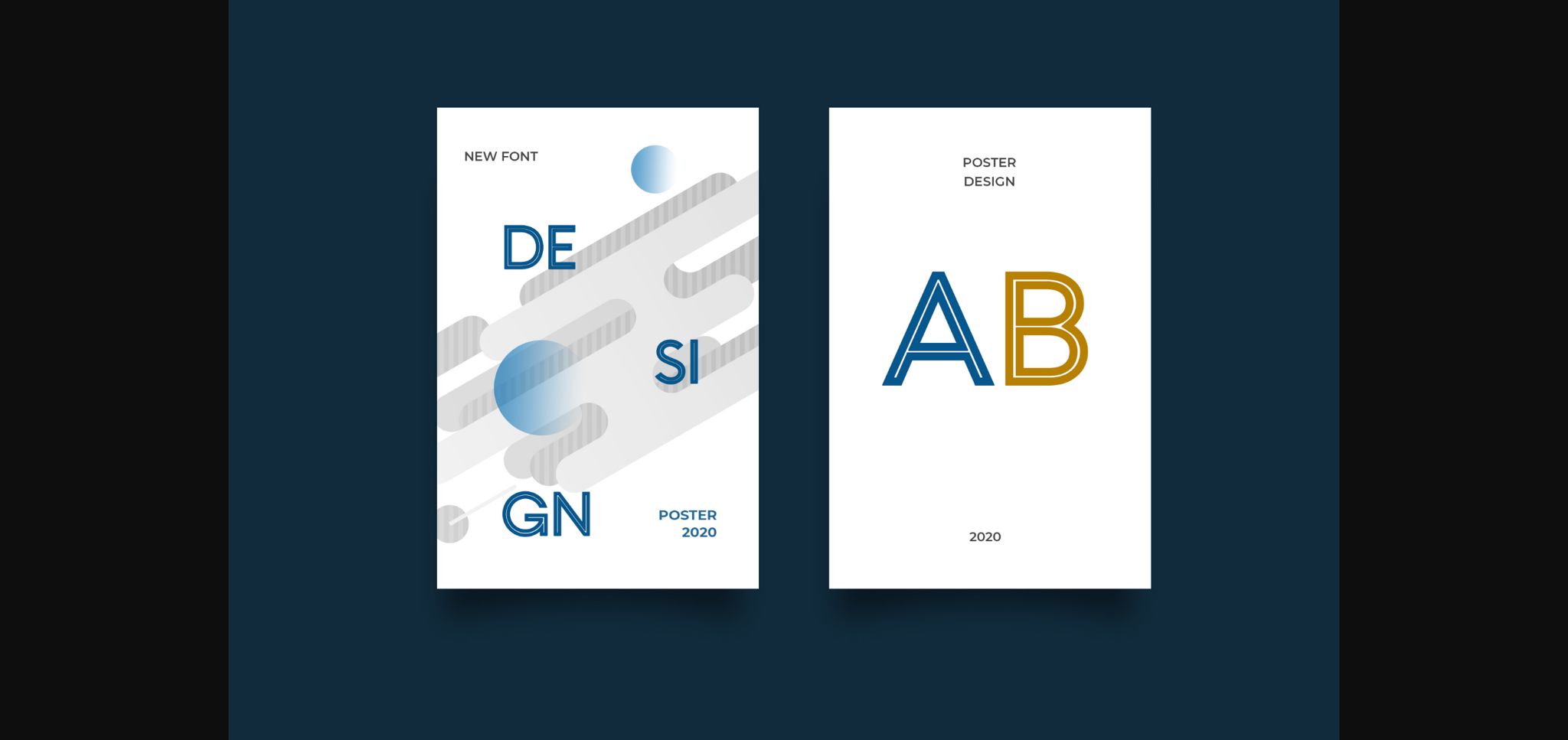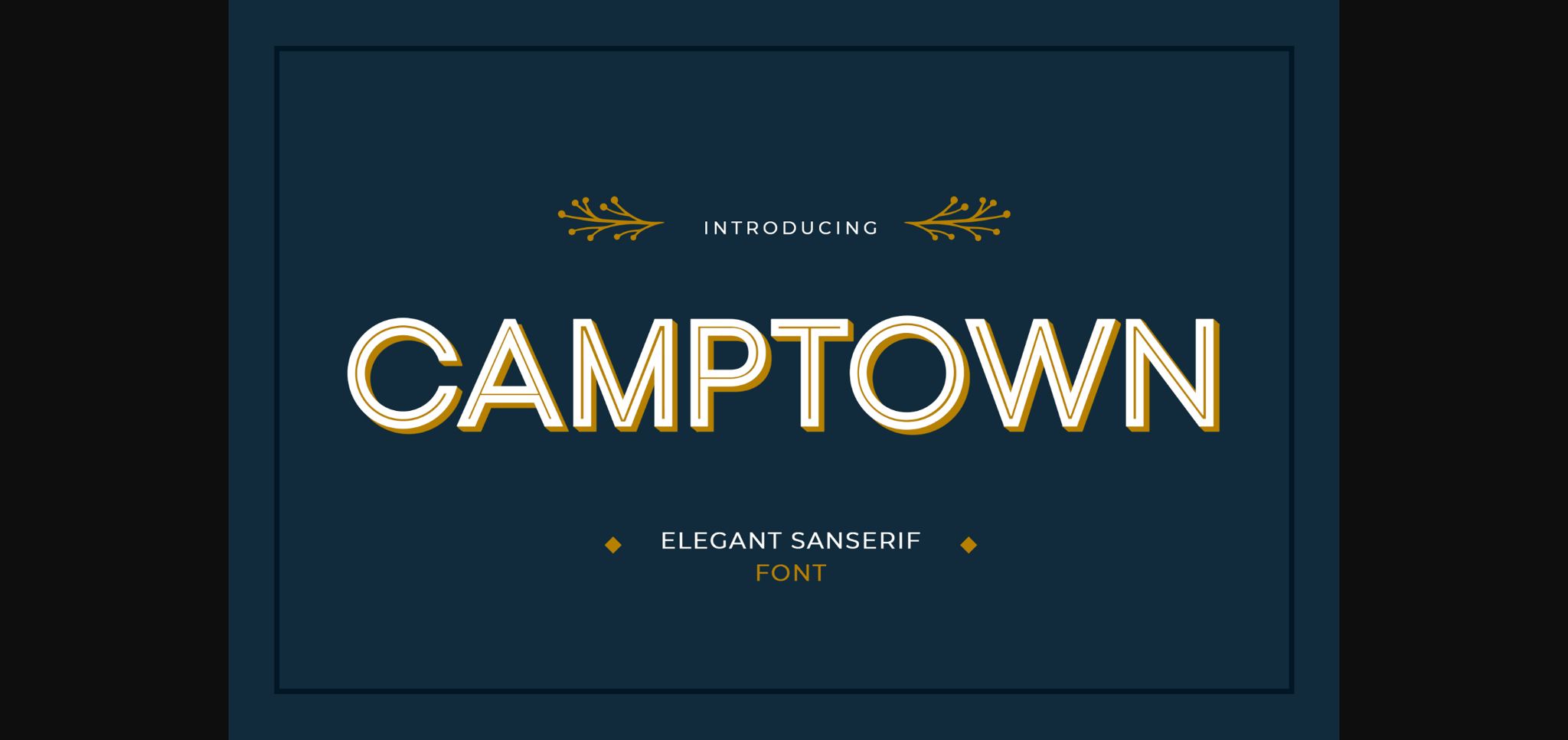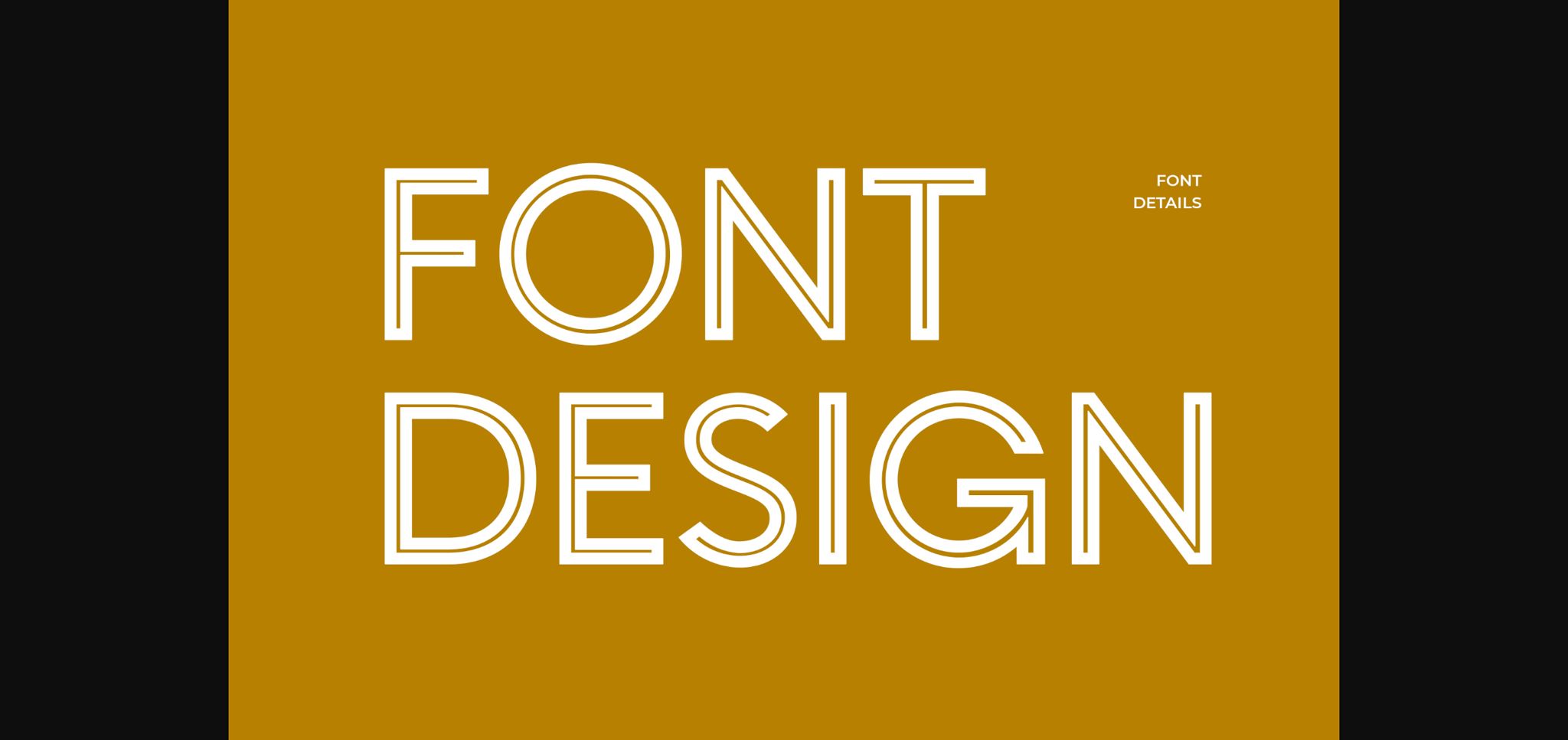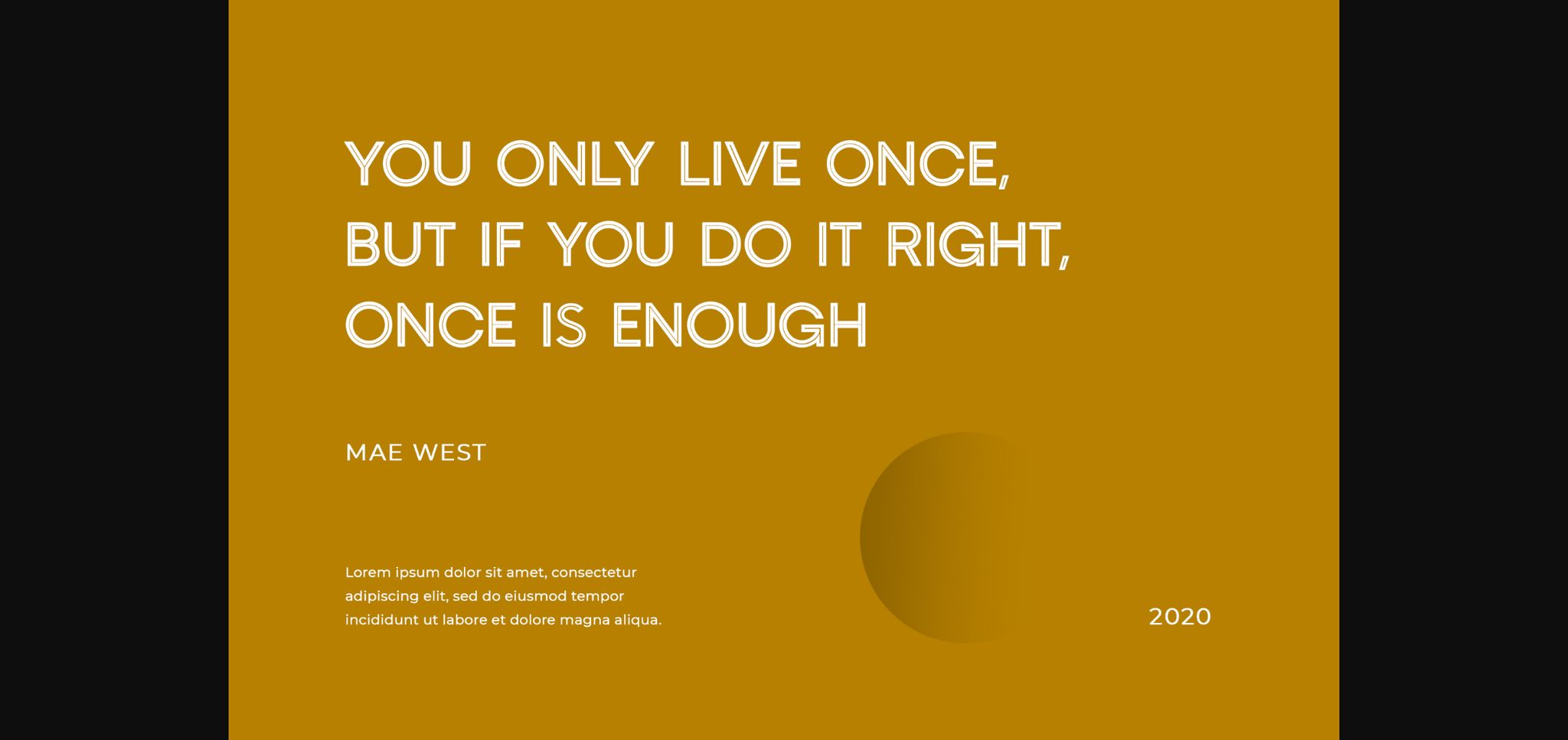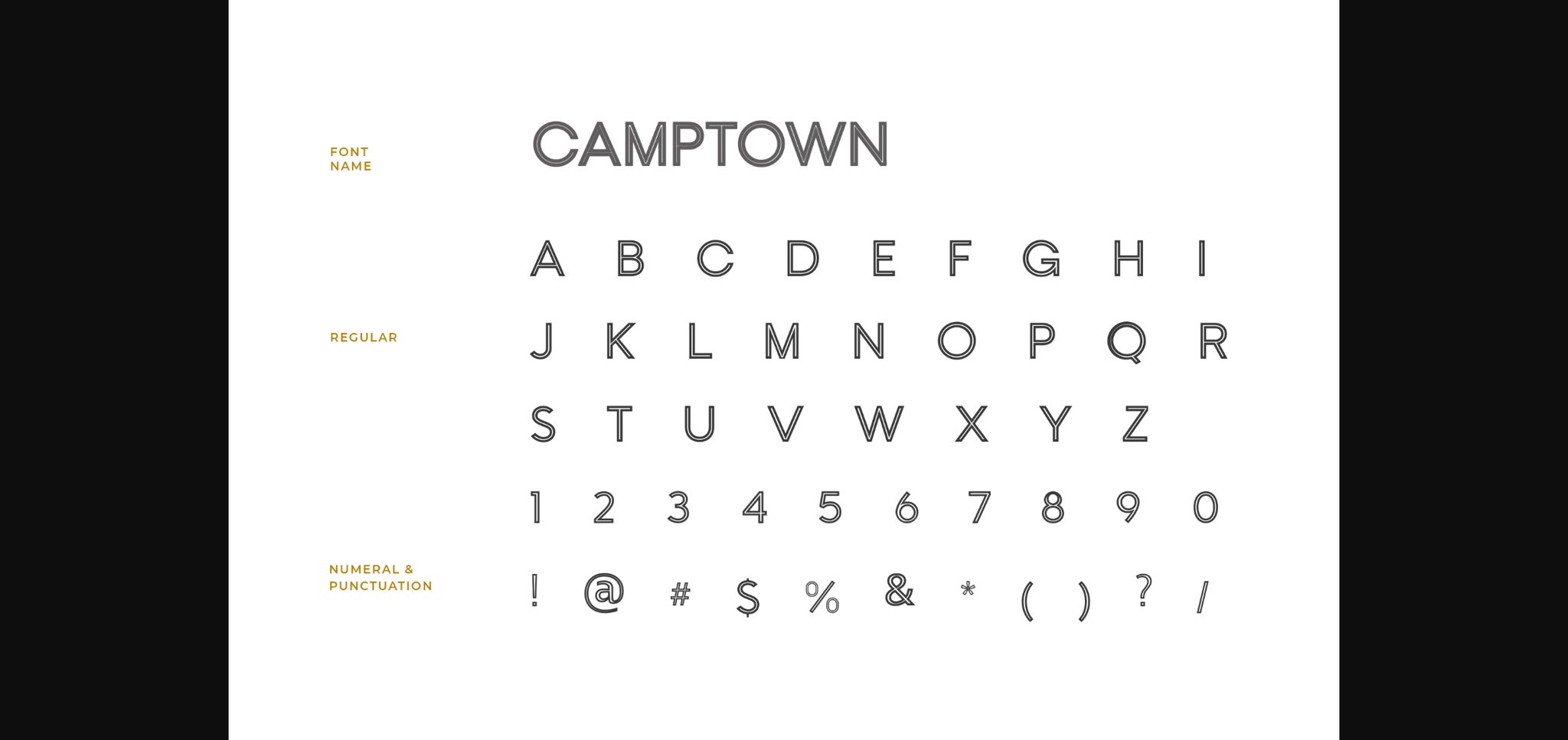
Camptown Font
About Camptown Font
Camptown is an elegant and neat sans serif font. It can effortlessly be matched to an incredibly large set of projects, so add it to your creative ideas and notice how it makes them stand out!